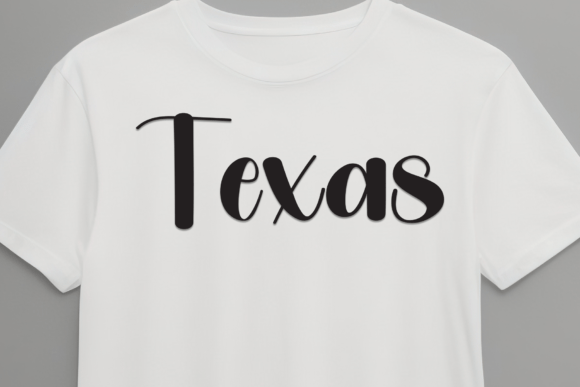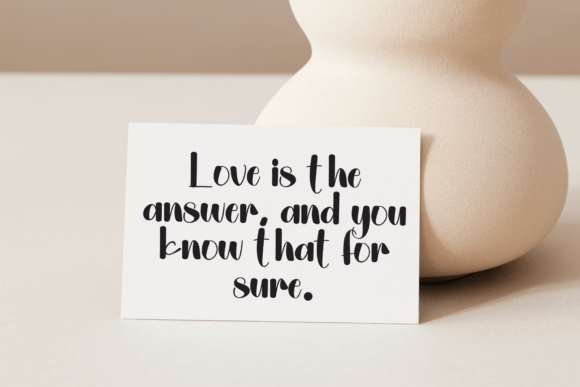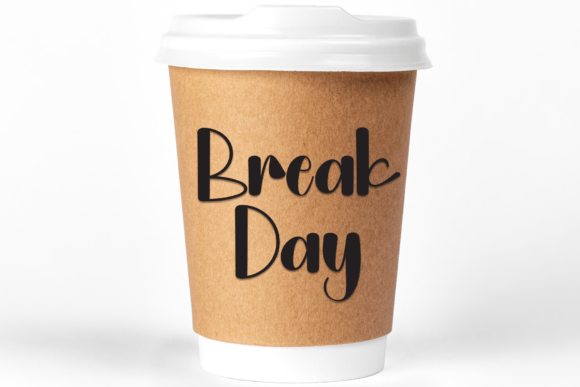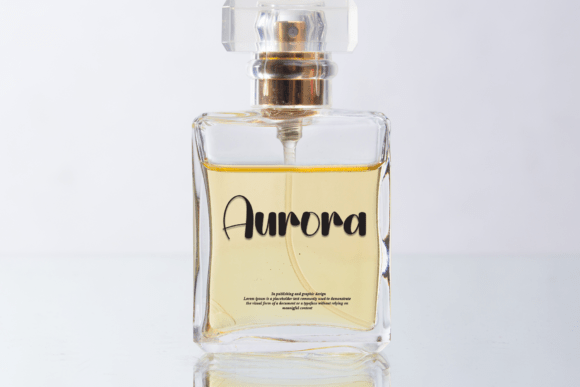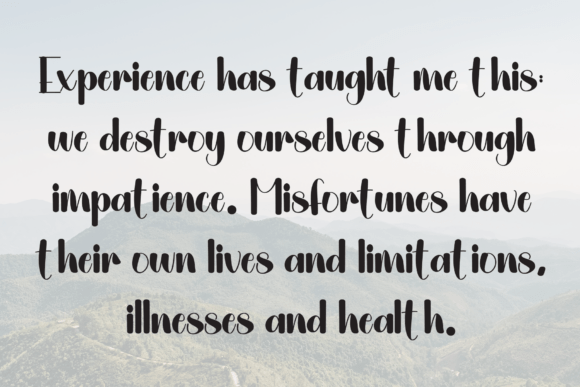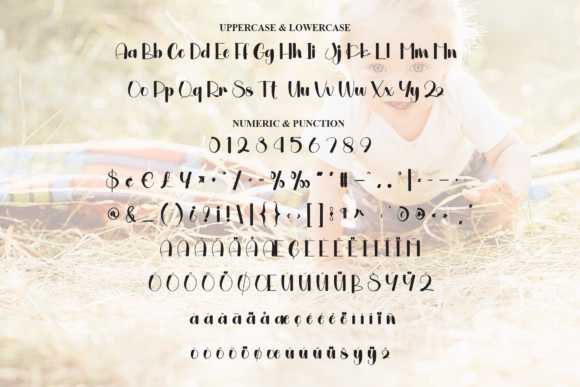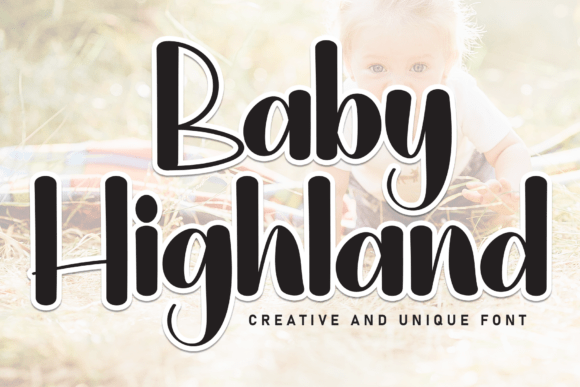
Baby Highland Font: Elevate Your Designs with a Touch of Elegance
Are you a designer or crafter looking for a unique and creative way to elevate your projects? Look no further than the Baby Highland Font, a special creative product designed to provide you with an extraordinary experience. This stunning font is perfect for a variety of applications, from wall displays and wedding invitations to social media post logos, advertisements, product packaging, and more.
The Latest Style Letters for Your Creative Projects
The Baby Highland Font features the latest style letters that are sure to add a touch of elegance and sophistication to your designs. With its beautiful and unique handwriting style, this font is perfect for anyone looking to add a personal touch to their projects. Whether you’re a professional designer or a crafty DIY enthusiast, this font is sure to inspire your creativity and help you create stunning designs that stand out from the crowd.
The Baby Highland Font is versatile and can be used for a wide range of applications, including:
- Wall displays: Add a touch of elegance to your wall displays with this beautiful font.
- Wedding invitations: Make your wedding invitations truly special with this stunning font.
- Social media post logos: Elevate your social media presence with this unique and creative font.
- Advertisements: Grab attention with this eye-catching font that’s sure to stand out.
- Product packaging: Add a touch of sophistication to your product packaging with this beautiful font.
- Product designs: Create stunning product designs that showcase your brand’s personality.
- Labels: Add a personal touch to your labels with this unique font.
- Photography: Use this font to add a touch of elegance to your photography.
- Watermarks: Protect your images with a stylish watermark featuring this beautiful font.
- Invitations: Create stunning invitations for any occasion with this versatile font.
- Stationery: Elevate your stationery with this beautiful and unique font.
Why Choose the Baby Highland Font?
So why choose the Baby Highland Font for your creative projects? Here are just a few reasons:
- Unique and creative: This font is truly one-of-a-kind and will add a touch of elegance to your designs.
- Versatile: Can be used for a wide range of applications, from wall displays to social media post logos.